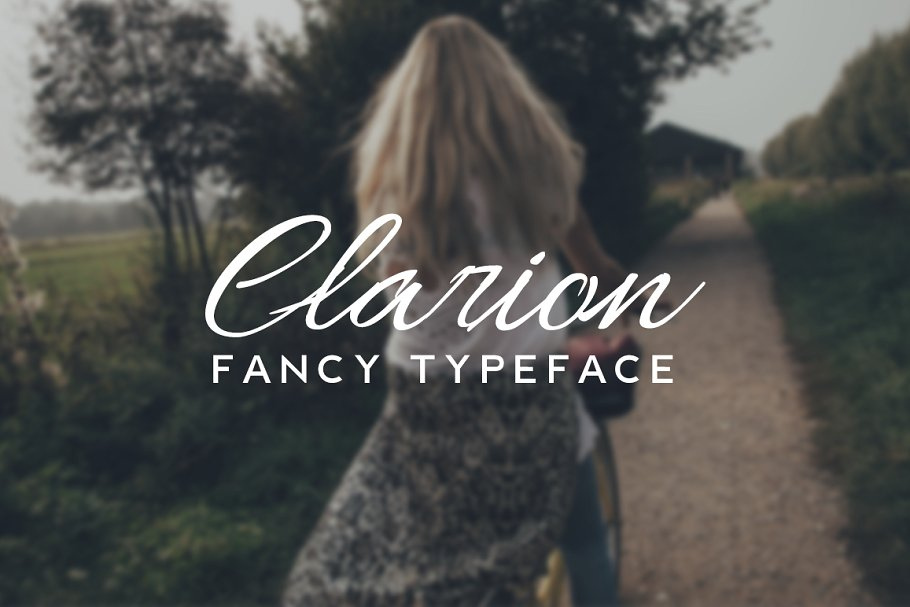
Clarion Font
Clarion Font is perfect for newspaper publishing, news broadcasting networks, editorial publications, journalistic platforms, media communications, and clear information delivery systems. Its authoritative character makes it ideal for press organizations, news websites, investigative journalism outlets, media training institutes, public relations firms, and any project requiring crystal-clear communication with journalistic integrity and news media professionalism.
This font is exciting because it embodies the clarity and authority of professional journalism while delivering exceptional readability across all media platforms and news formats. The precisely crafted letterforms ensure perfect legibility in breaking news situations, creating typography that feels both trustworthy and urgent, making it ideal for organizations seeking to communicate important information with journalistic credibility and immediate clarity.
The Clarion Font family typically includes Light, Regular, Medium, and Bold weights with editorial alternates, news-focused ligatures, and journalistic elements that enhance its authoritative personality. This comprehensive collection enables media professionals to create credible brand systems that maintain journalistic standards while providing flexibility for various news applications requiring both authority and accessibility across diverse audiences.
Whether you're developing identity systems for news organizations, creating layouts for editorial publications, or designing interfaces for news platforms, Clarion Font Free Download delivers the journalistic authority and communication clarity that connects with information-seeking audiences worldwide. Its trustworthy presence ensures reliable brand recognition across digital platforms and print materials, making it perfect for websites, mobile applications, and news campaigns that celebrate press freedom, journalistic integrity, and the vital importance of clear, accurate information delivery with contemporary media standards and uncompromising editorial excellence.